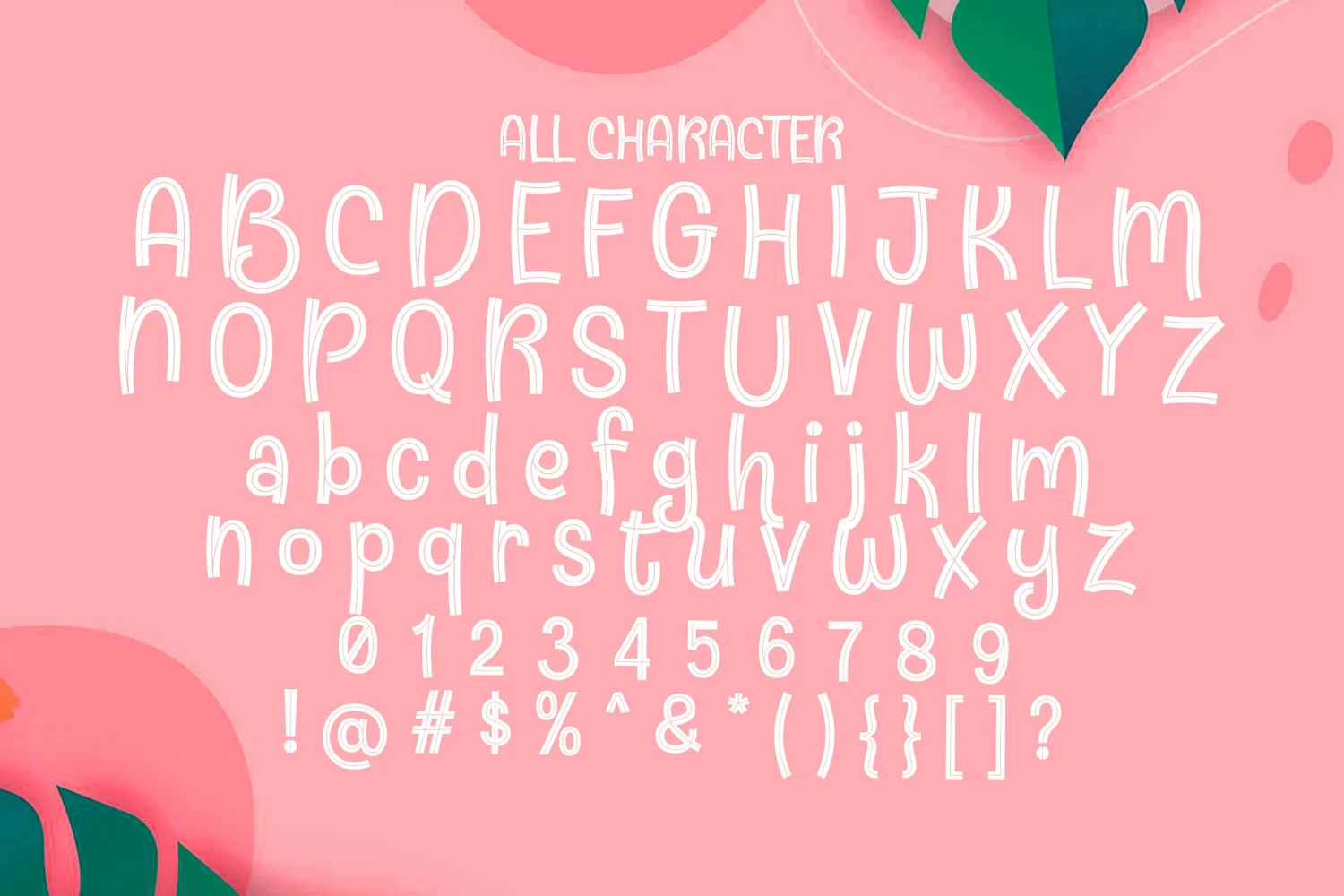
Thirteen is a unique script font. Perfect for display, poster, quotes, film, craft needs, book cover, business card, packaging, merchandise, branding, logo, logotype, header, title, and many more.